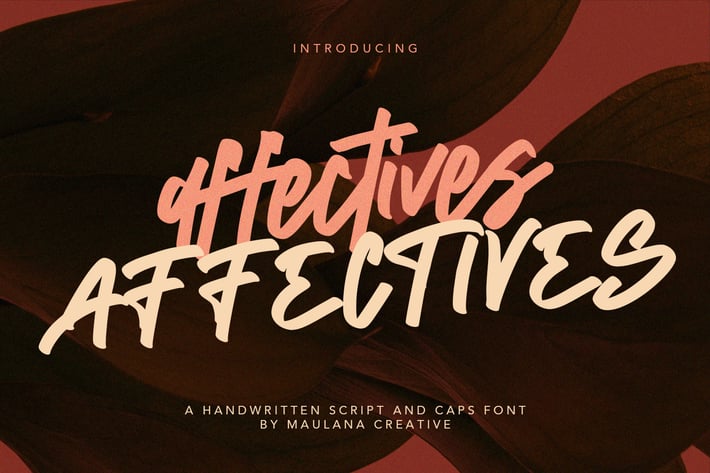
Affectives Handwritten Script Brush Font
Give your designs an authentic handcrafted feel. Affectives Handwritten Script Brush Font is perfectly suited to stationery, logos and much more.